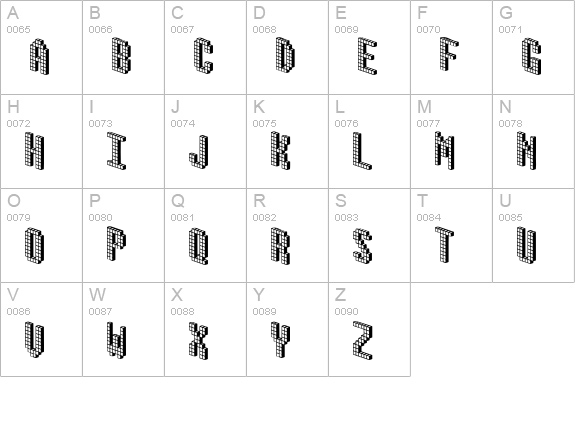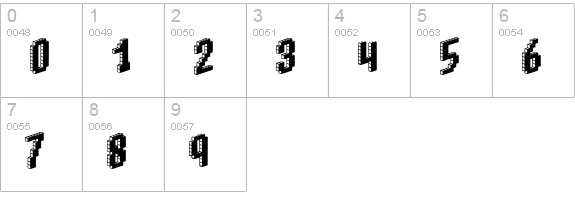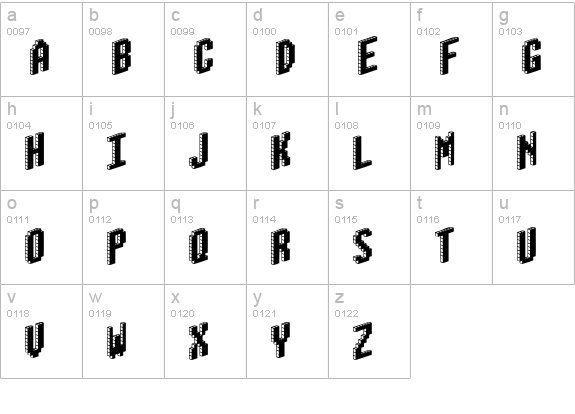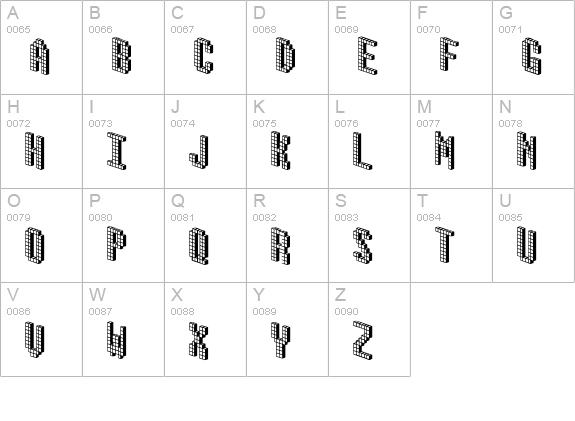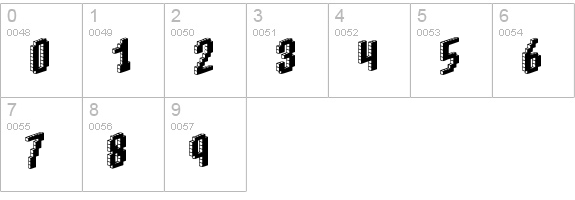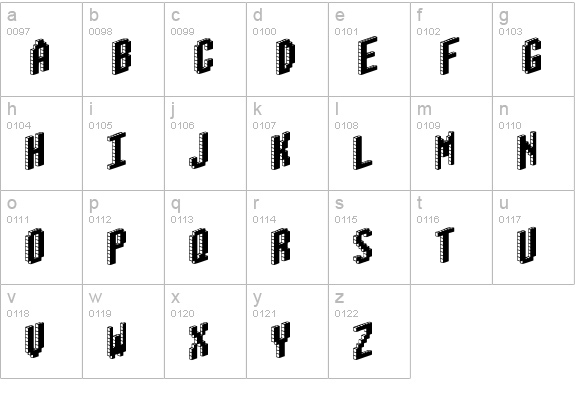
Introducing Blox (BRK), a stunning and versatile font that is sure to elevate your designs to new heights. With its bold and unique letterforms, Blox (BRK) captures attention and adds a touch of modernity to any project. This font is not only visually striking, but it also offers incredible flexibility. Whether you're designing a logo, creating a poster, or embarking on a typographic experiment, Blox (BRK) can adapt to your needs and bring your vision to life. One of the most remarkable aspects of Blox (BRK) is that it is freely available to download at FontsMarket.com. Yes, that's right - this incredible font can be yours at no cost. FontsMarket.com is a trusted source for high-quality fonts, and they are proud to offer Blox (BRK) as a free download to their valued users. So why wait? Enhance your designs with the captivating allure of Blox (BRK), and experience the power and creativity that this font brings. Download it today from FontsMarket.com and unlock a world of endless possibilities in your design journey.